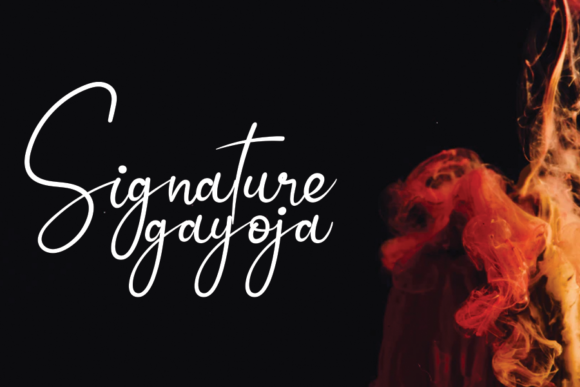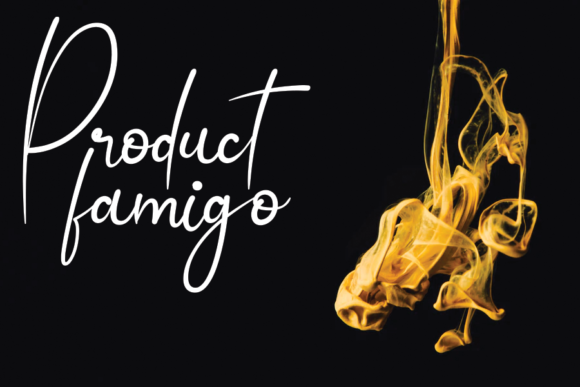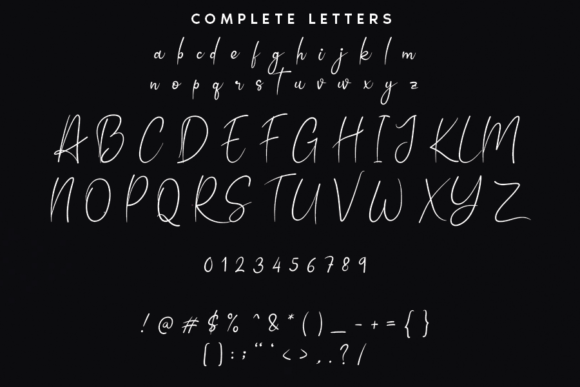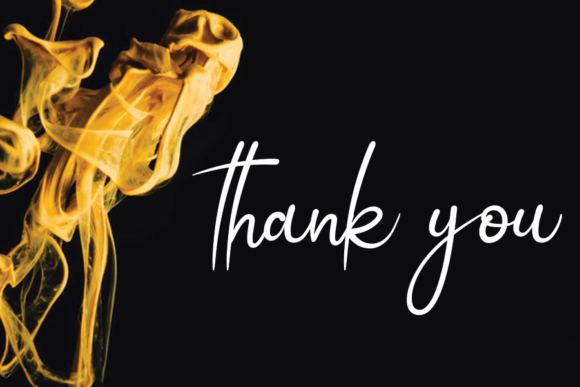
Introduction to Rahamitta Font
Rahamitta is a delicate, elegant and flowing handwritten font.
It has beautiful and well balanced characters and as a result, it matches a wide pool of designs Add it to your most creative ideas and notice how it makes them come alive.
Key Features of Rahamitta Font